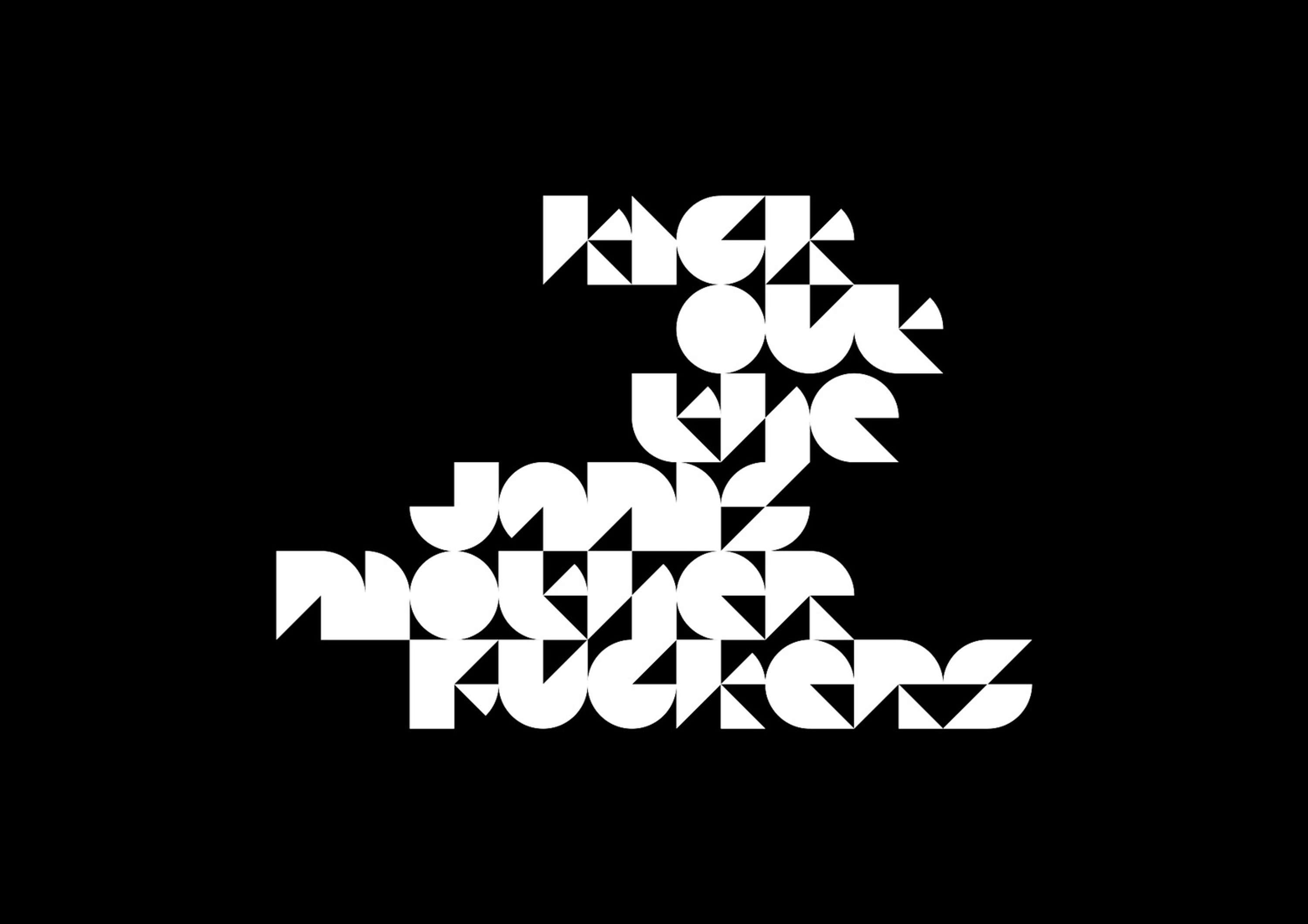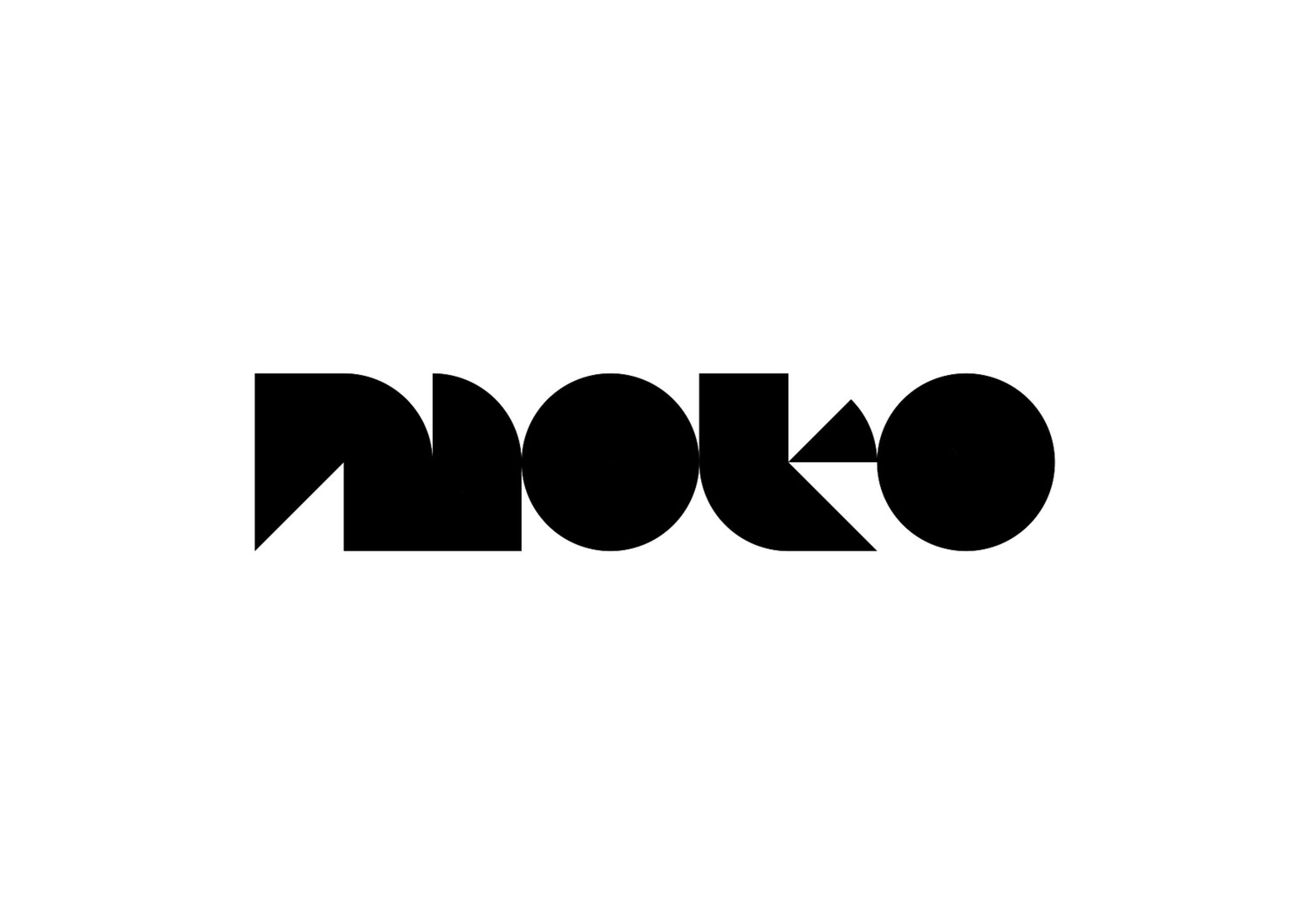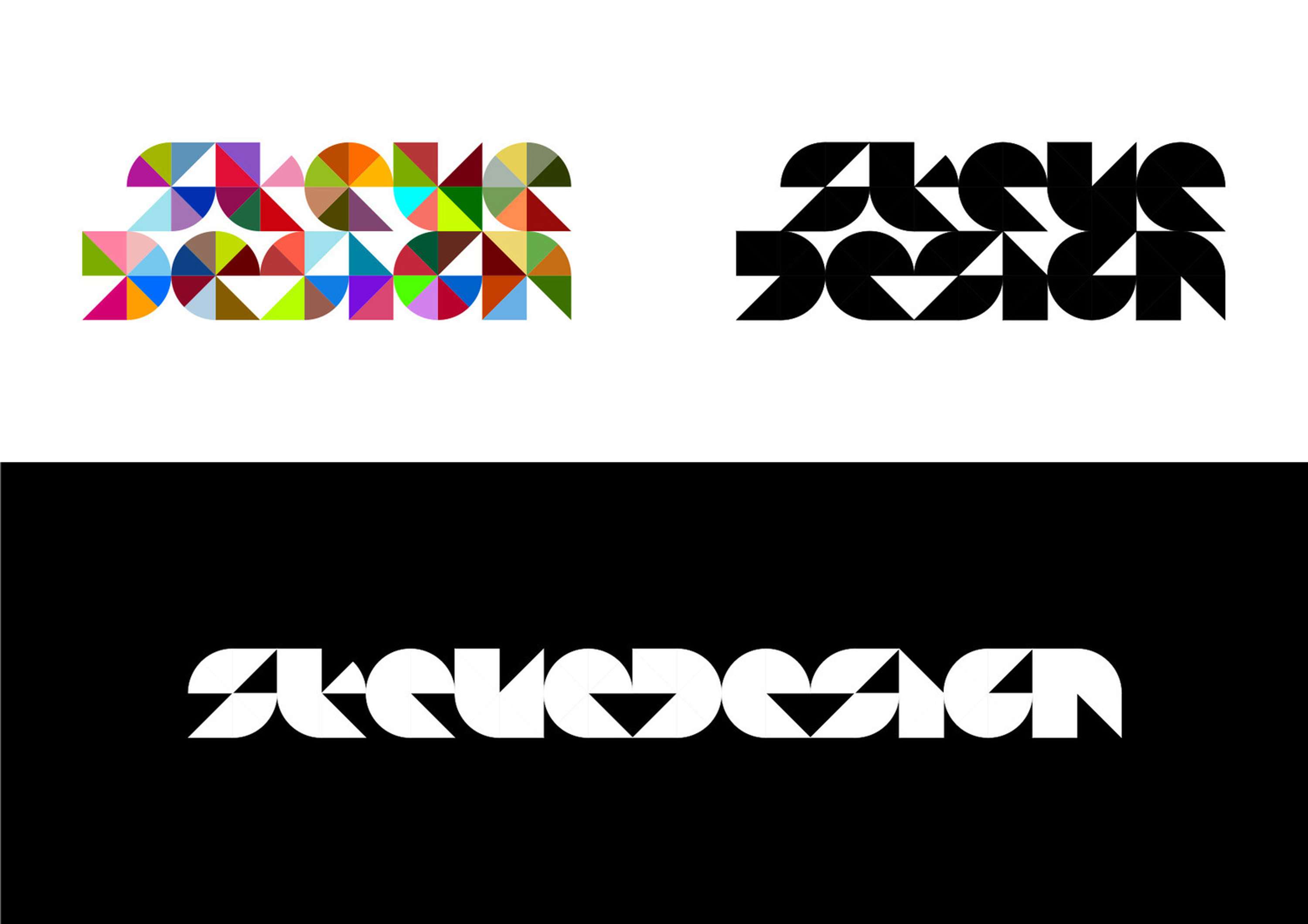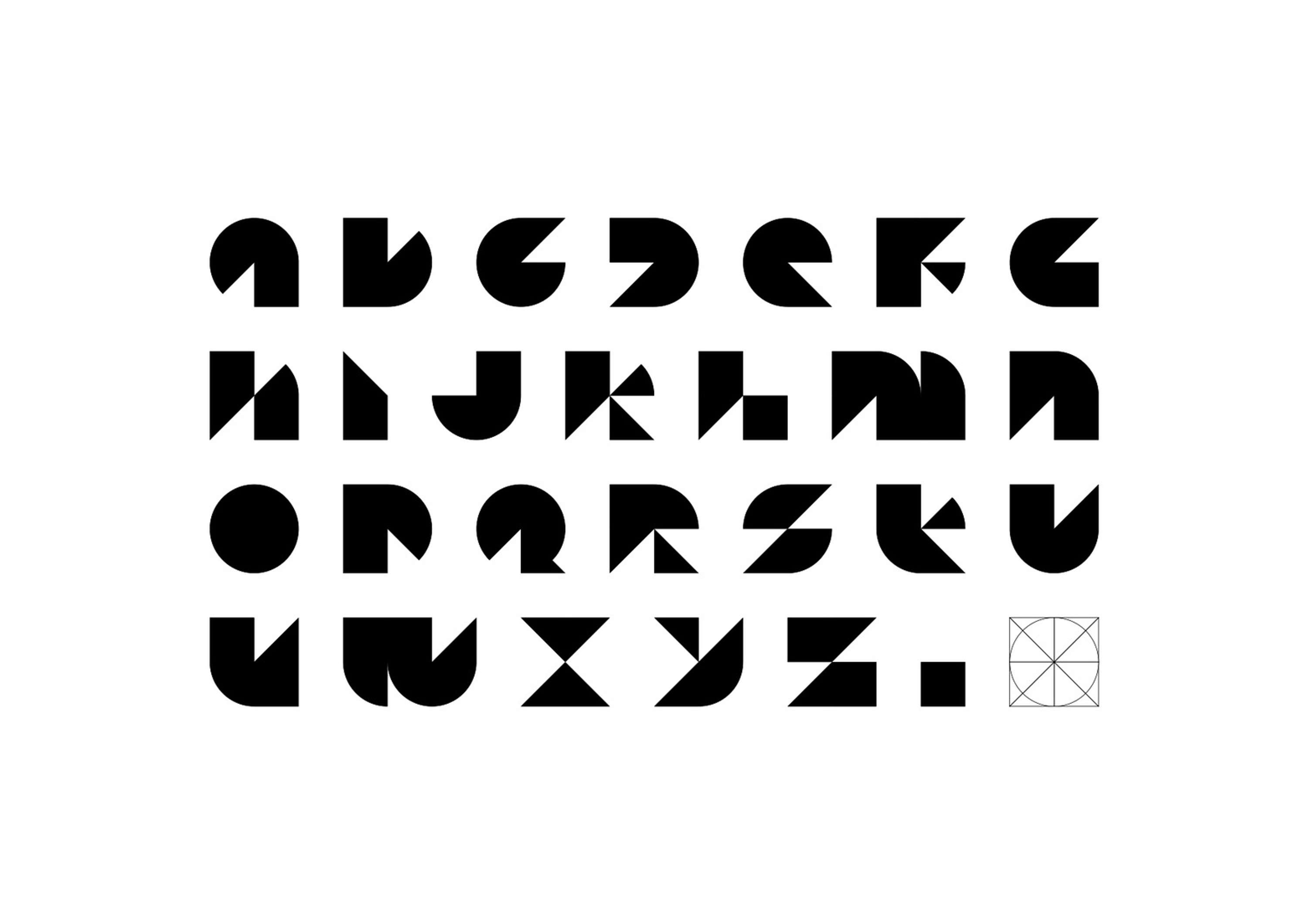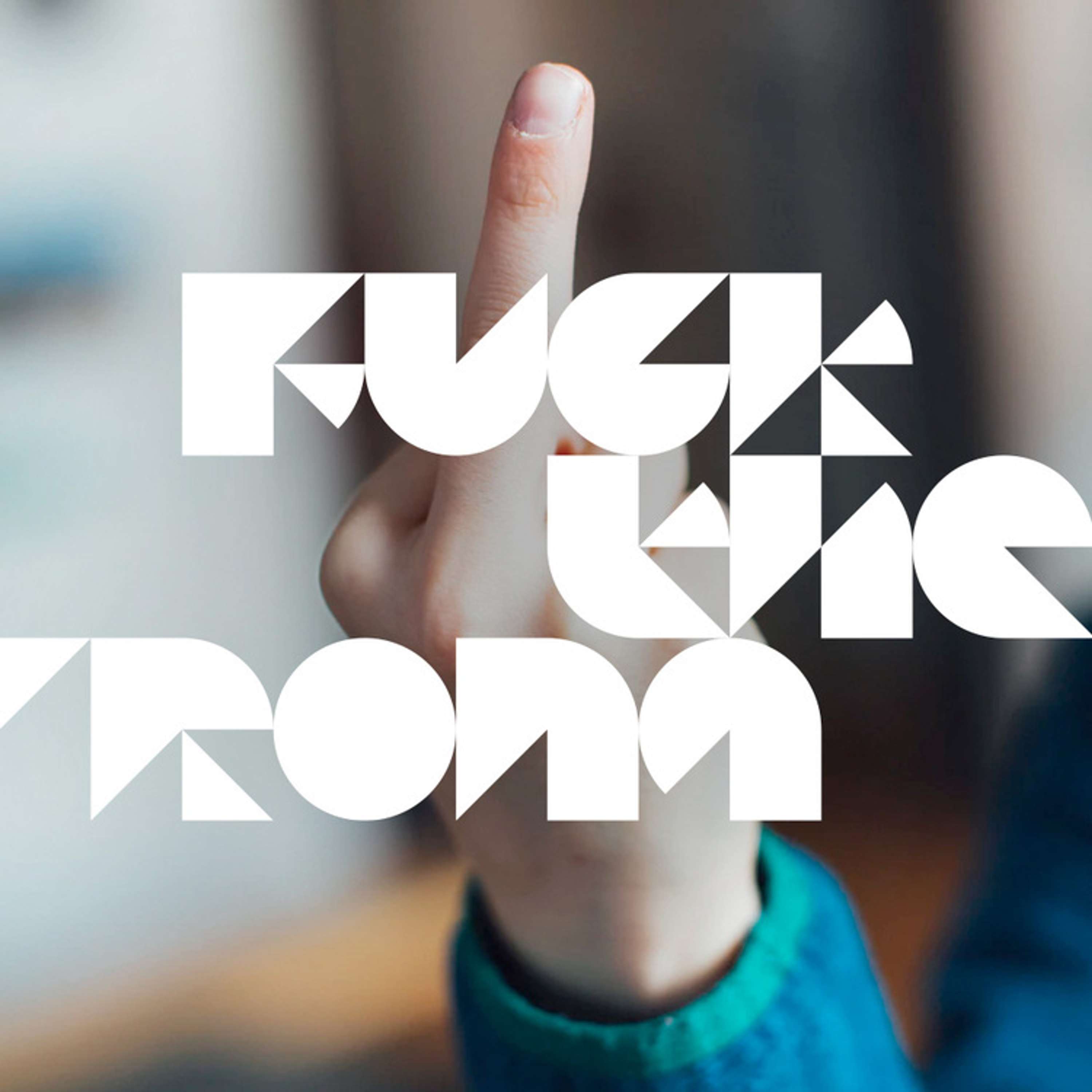
A typeface called Steve
I made a typeface. It’s a unicase font based around a simple geometric grid. Geometry is my thing really. Always has been. Having had my graphic education in the late ‘80s and early ‘90s, like many, I’m a disciple of Brody, Barnbrook, Carson, Oliver and the new wave of design that emerged during that period. This is a shameless homage to those untouchables.
A typeface called Steve by Steve Price